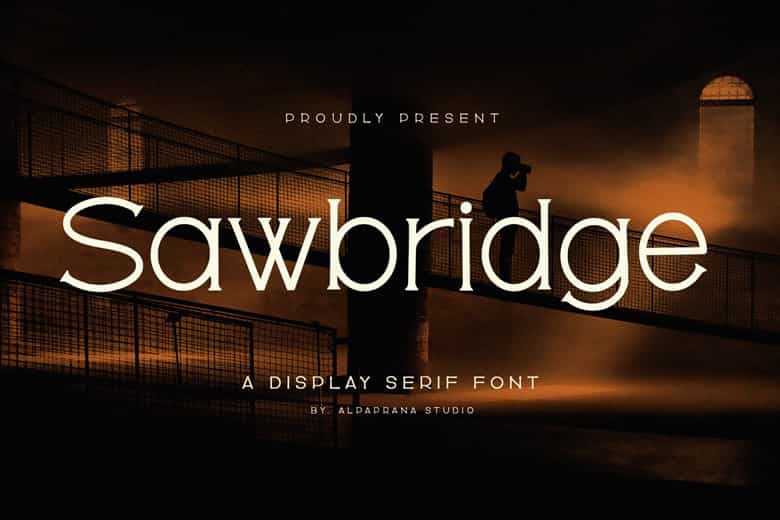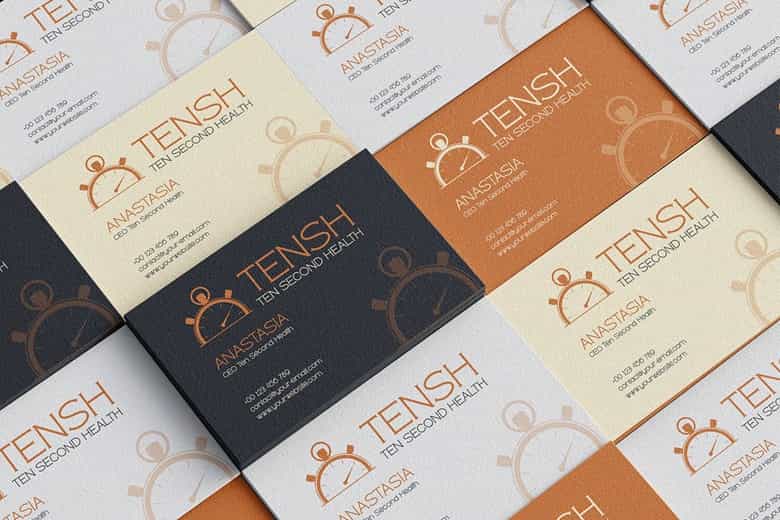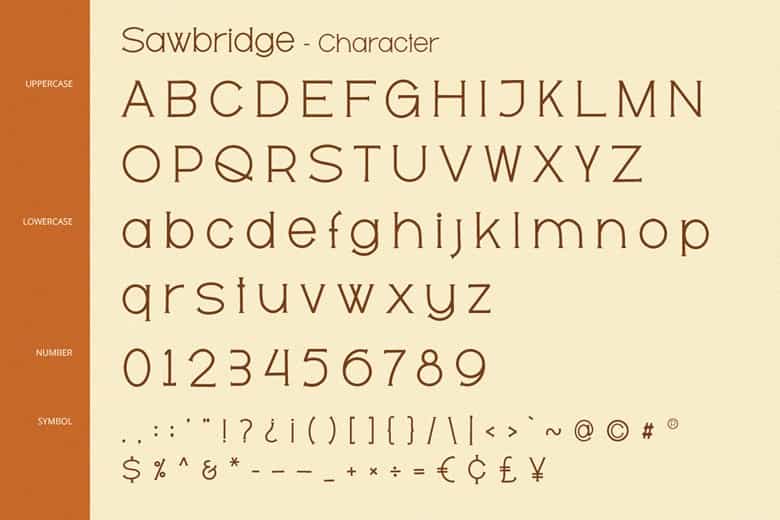
Sawbridge is a new display serif font that has elegant and modern appearance. They will be ideal for branding, logo design, lettering, clothing, magazine, packaging, posters, shopping bags, t-shirts, book covers, photography, special events and other design projects.